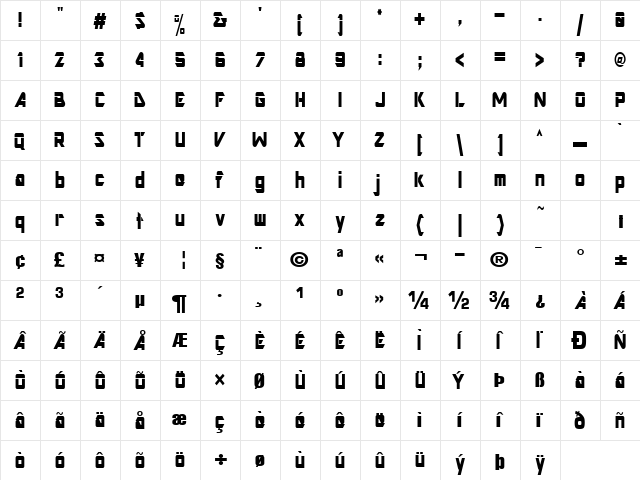
ArtRecord114 Regular Font Preview
ArtRecord114 Regular
ArtRecord114 Regular Font Details
Design Context for ArtRecord114 Typeface
ArtRecord114 offers clean, dependable letterforms without strong stylistic allegiance, making it a practical choice for designers who need flexibility.